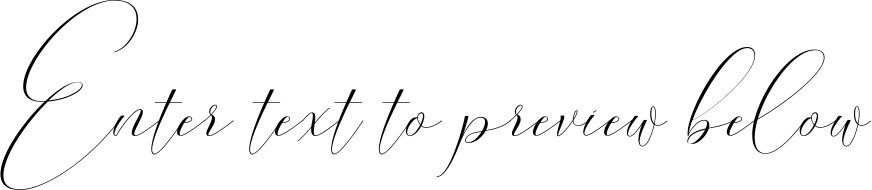
NEW ! Washington Script. It's an modern typeface. Washington Script, including swashes, ligatures,Alternate and International support for most Western Languages is included.
This one should make your designs instantly professional and jaw-dropping! Be a perfect professional in a minute and start creating modern designs like ads, sales, logos, branding, posters, social media text overlays today!